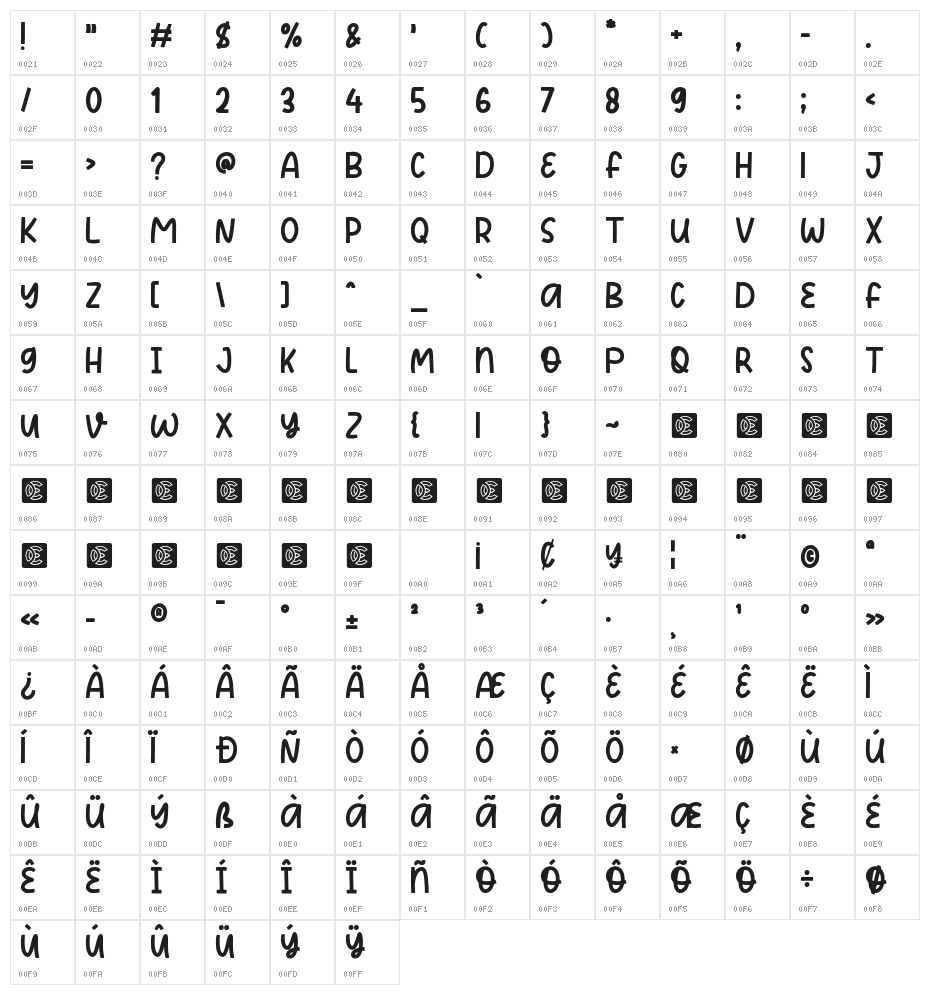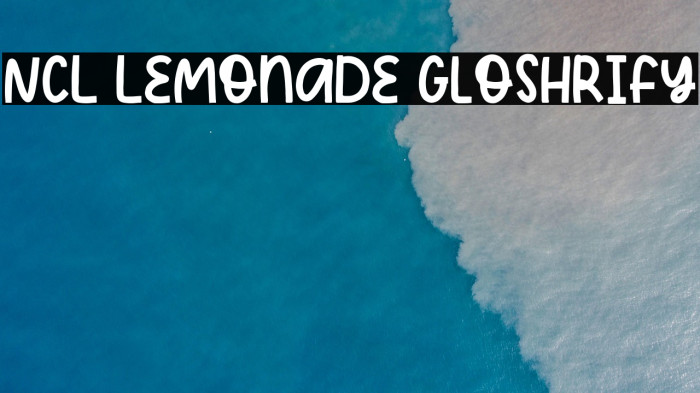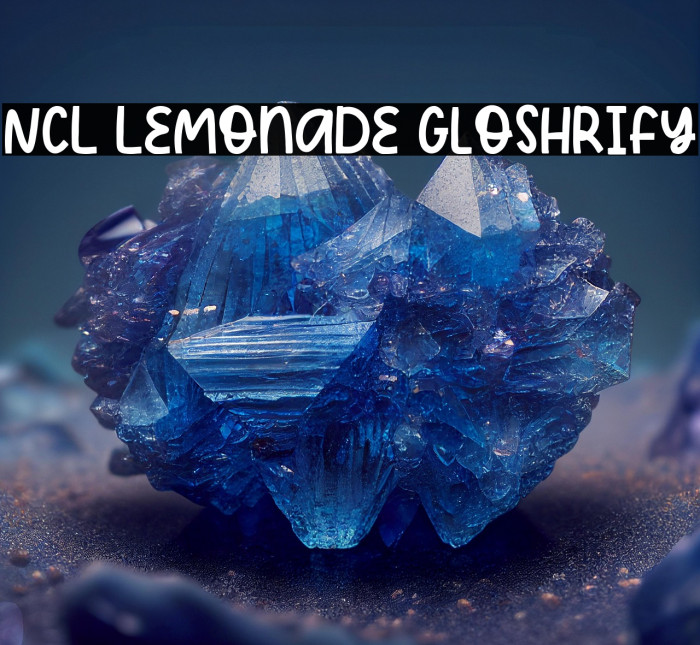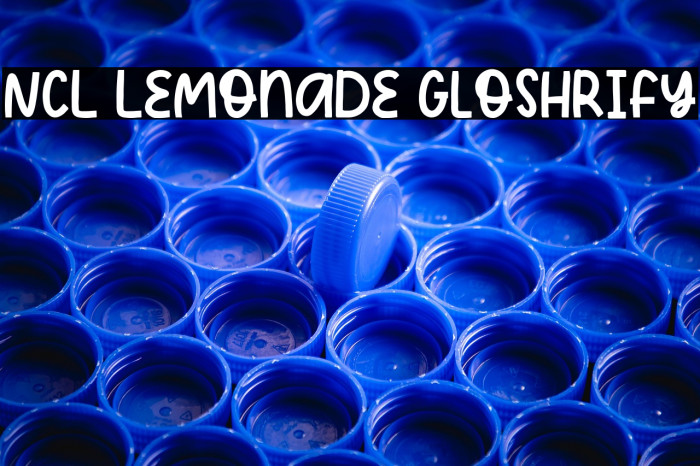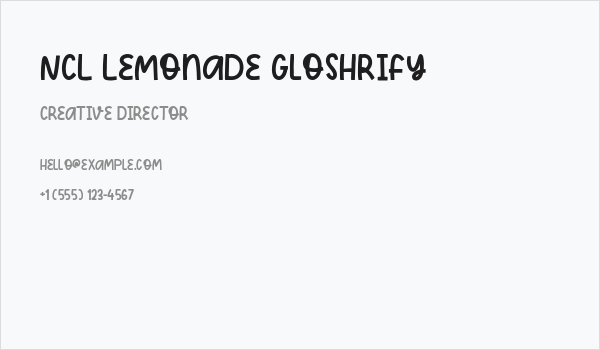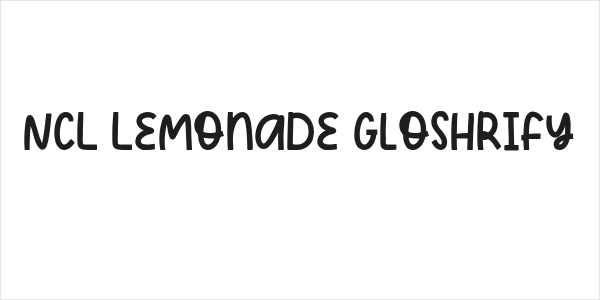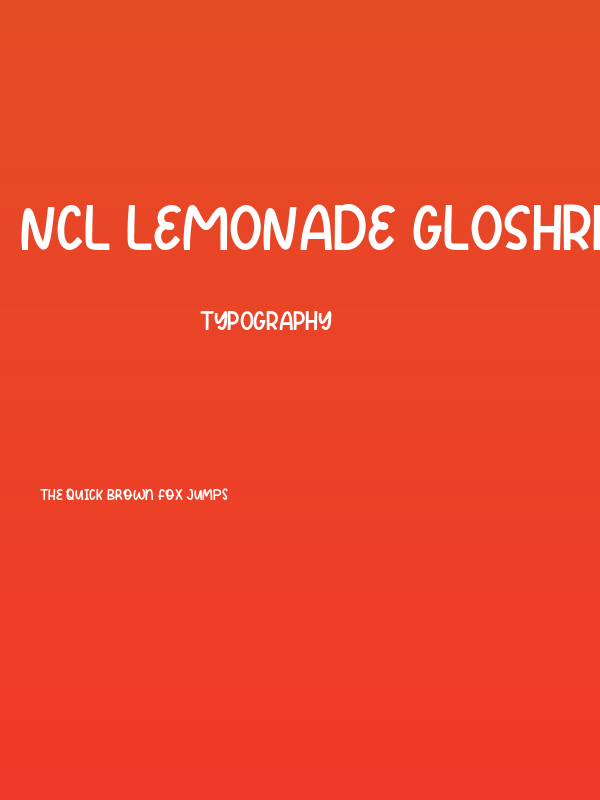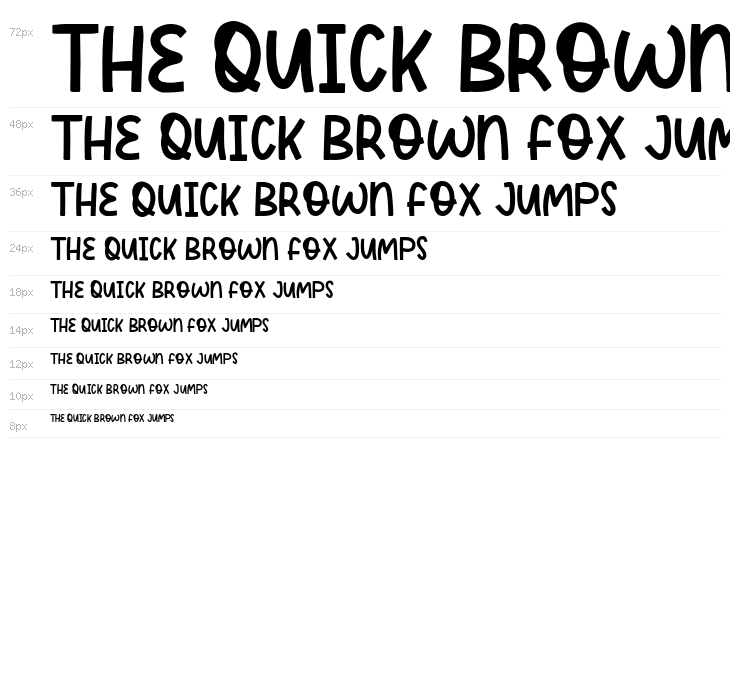
NCL Lemonade Gloshrify Font
NCL Lemonade Gloshrify Description
This font features a playful and casual handwritten style, characterized by its rounded and slightly irregular letterforms. The uppercase and lowercase letters maintain a consistent flow, with a whimsical touch that adds personality. The numbers and special characters follow the same playful design, making the font versatile for various creative projects. Its bold appearance ensures readability while maintaining a friendly and approachable aesthetic.
| Proposed Projects | Ideal for children's books, greeting cards, playful branding, and social media graphics. |